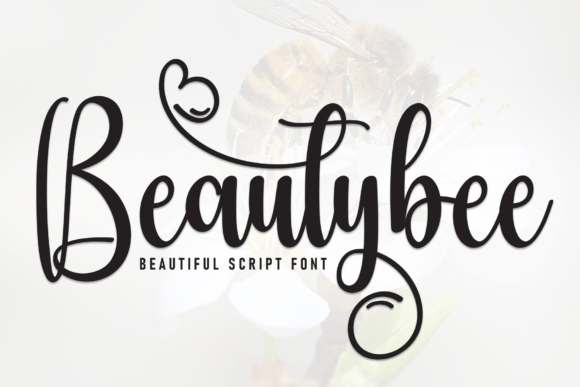
Love at First Sight: The Beautybee Font
Have you ever found yourself lost in the perfect font, one that speaks directly to your soul and ignites a spark of creativity? For designers, this moment is a treasure, and it’s what makes the Beautybee Font so special. This exquisite handwritten font is designed to evoke a sense of love and tenderness, making it the perfect choice for any project that requires a touch of romance.
The Beautybee Font’s charming hearts and flowing strokes add a whimsical touch to any design, making it a valuable asset for designers who want to infuse their creations with love and emotion. Whether you’re crafting wedding invitations, love notes, or heartfelt messages, this font will help you convey your message in a way that’s both beautiful and meaningful.
Beautybee Font Key Features
- Unique Characteristics: This font features a unique blend of modern and vintage elements, making it perfect for designers who want to add a touch of elegance and sophistication to their work.
Designer Review: Beautybee Font
As a designer, I’ve had the chance to work with the Beautybee Font, and I’m sharing my honest thoughts on its pros and cons. ✨
- ✨ The font’s playful and whimsical feel makes it perfect for projects that need a touch of sweetness.
- ✨ The high-quality vector graphics ensure crisp and clear rendering across various platforms.
- ✨ The font’s flexibility allows for easy customization and scaling without losing its charm.
- ⚠️ Limited character set, which might be a concern for projects requiring a broad range of characters.
- ⚠️ Some letters might require manual adjustments to maintain proper spacing and alignment.
- ⚠️ Not ideal for large blocks of text, as it can become overwhelming and difficult to read.
While Beautybee Font is not a one-size-fits-all solution, it excels in specific niches, such as branding, packaging, and editorial design. With some careful planning and adjustments, it can be a valuable addition to your design toolkit. However, its limitations should be considered before committing to it for larger projects or complex typography needs.
The Beautybee Font is ideal for creative projects, such as:
2. Branding and logo designs.
3. Social media graphics and advertising.
Remember to adjust the font size and style according to your design needs.
Alternatives to Beautybee Font for Designers
Great Vibes Font is a modern, elegant, and cursive script font. It is ideal for use in wedding invitations, greeting cards, and other creative projects where a touch of elegance is required. Great Vibes Font has a similar whimsical feel to Beautybee Font but with a more refined and sophisticated look.
Comparison: While both fonts have a cursive feel, Great Vibes Font is more polished and less playful than Beautybee Font.
Carolyna Pro Font is a luxurious, elegant, and modern script font. It is perfect for use in high-end branding, packaging, and advertising projects where a touch of sophistication is required. Carolyna Pro Font has a similar luxurious feel to Beautybee Font but with a more refined and sophisticated look.
Comparison: While both fonts have a luxurious feel, Carolyna Pro Font is more refined and less playful than Beautybee Font.
Alex Brush Font is a beautiful, elegant, and cursive script font. It is ideal for use in creative projects such as wedding invitations, greeting cards, and packaging where a touch of elegance is required. Alex Brush Font has a similar cursive feel to Beautybee Font but with a more refined and classic look.